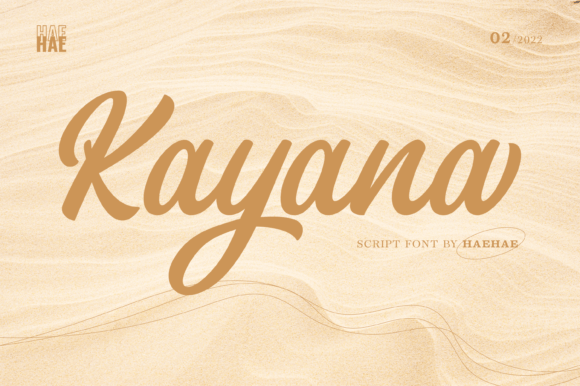
Step into the world of Kayana Font, a modern and fresh handwritten script that dances across the page with its enchanting charm. Crafted by the talented haehaedesign, Kayana is more than just a font; it's an expression of creativity, a whisper of elegance, and a burst of inspiration.
Unleash your imagination and let the words flow effortlessly from your fingertips as you embrace Kayana's captivating essence. This remarkable font is a versatile masterpiece, ready to transform your projects into works of art.
Immerse yourself in the beauty of Kayana's graceful curves and delicate strokes, adding a touch of sophistication to your logos, T-shirts, and merchandise designs. Let your creativity shine through as you craft stunning greeting cards and invitations that capture the essence of your special moments.
Kayana is not just a tool; it's a companion on your creative journey, enhancing your designs with its timeless elegance. With Kayana by your side, you'll discover new depths of expression, turning ordinary words into captivating stories.
So, let your imagination soar and embrace the limitless possibilities of Kayana Font. Elevate your designs to new heights, leaving a lasting impression on all who encounter your creations. Kayana is more than just a font; it's an experience, an expression, and an invitation to unleash your inner artist.